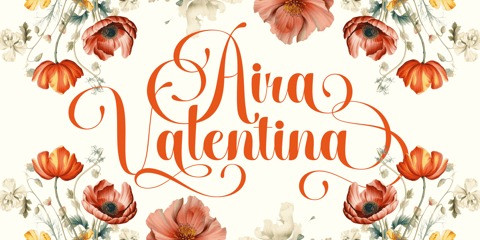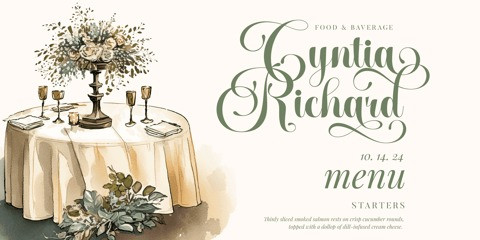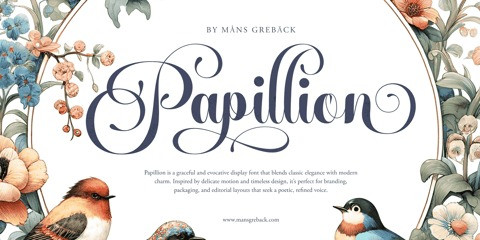
Papillion Script Font
Papillion Script Font is an elegant and ornamental script, infused with the spirit of French sophistication and theatrical flair. With its refined curves and decorative loops, it evokes the flutter of butterfly wings in motion, balancing formal structure with expressive movement.
The uppercase letters stand tall and majestic, wrapped in flourishing swirls that dance along the baseline. Meanwhile, the lowercase maintains a cleaner, more flowing form—perfect for graceful continuity in longer texts. Together, they create a contrast that is both luxurious and lyrical.
The font is built with advanced OpenType functionality and guaranteed top-notch quality, containing stylistic and contextual alternates, ligatures and more automatic and manual features; all to give you full control and customizability.
Designed and crafted by Mans Greback, a type designer known for combining technical precision with artistic imagination, Papillion is a refined typographic piece that brings beauty to both names and narratives.